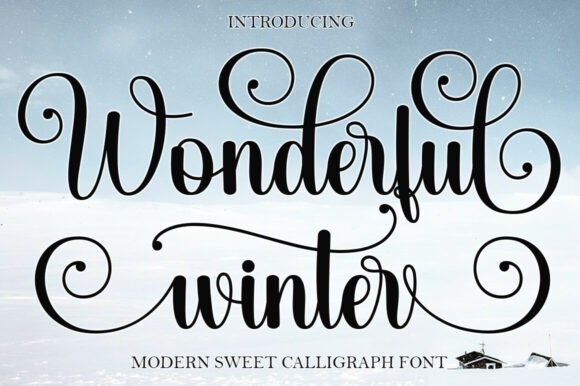
Adenman Posted July 11 Share Posted July 11 Introducing the Wonderful Winter Calligraphy Font, a modern, sweet script typeface that perfectly captures the elegance and charm of the winter season. This font is designed with flowing curves and beautiful, dramatic swashes and flourishes that adorn both the uppercase and lowercase letters, adding a luxurious and handcrafted feel to any project. The Wonderful Winter font is ideal for creating stunning, personalized holiday cards, wedding invitations, and stylish branding. With its rich set of glyphs, the Wonderful Winter typeface offers exceptional versatility for designers who need a touch of sophistication and whimsy. Giveaway Link –> https://www.creativefabrica.com/product/wonderful-winter-2 vhick, npo33770, Asciito and 2 others 2 3 Link to comment Share on other sites More sharing options...